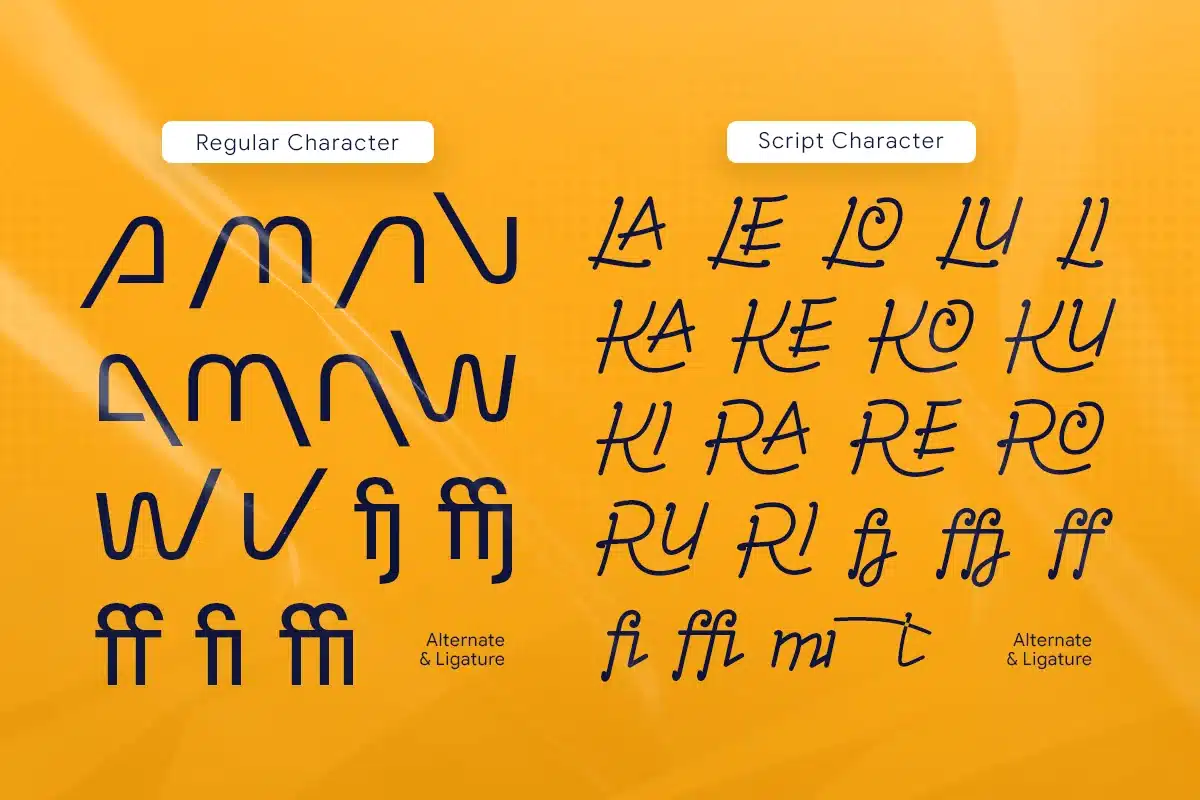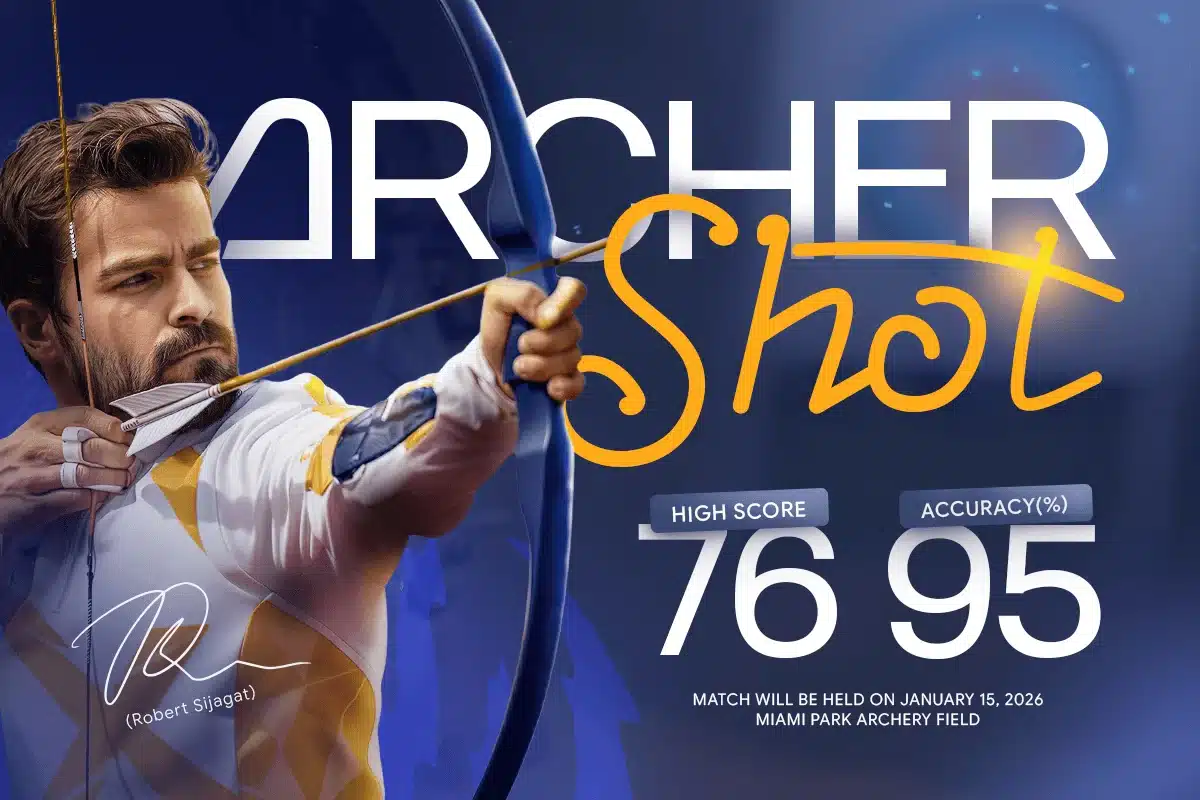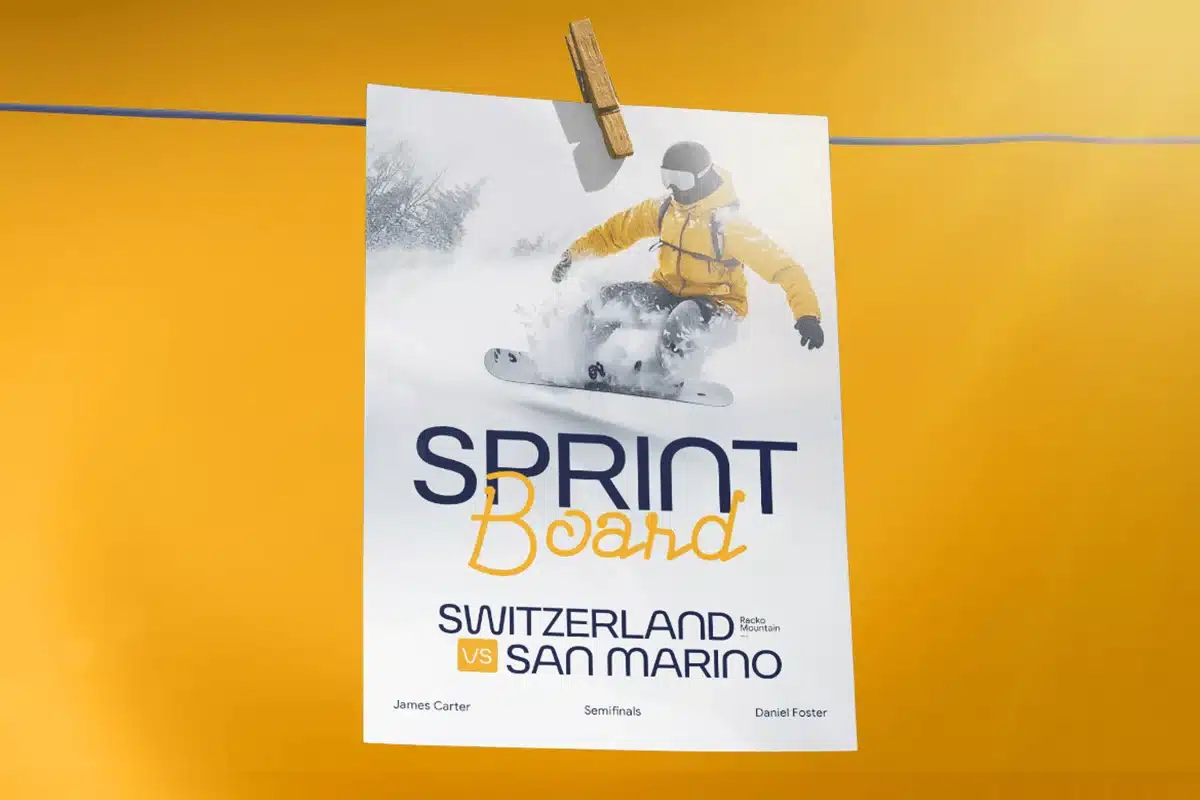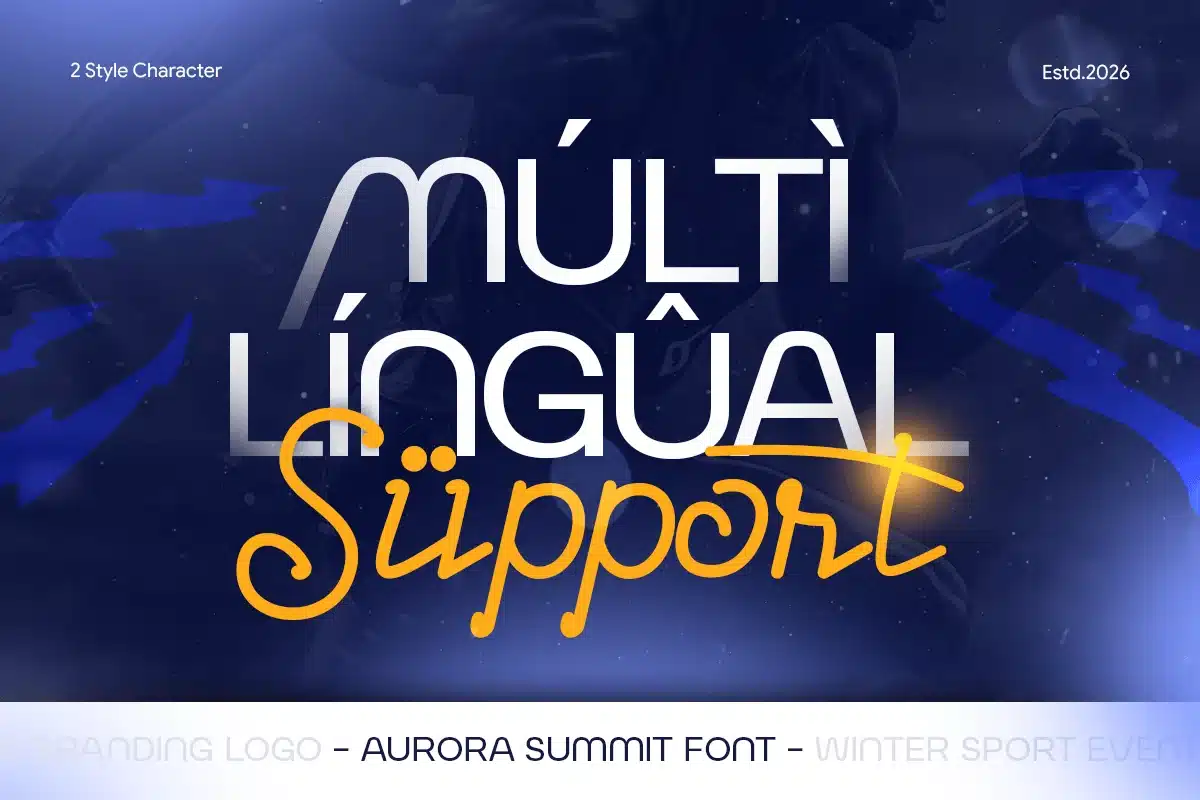
Aurora Summit – Sport Event Branding Logo Font
Aurora Summit is a modern branding logo font inspired by the elegance, energy, and global spirit of the Sport Event. Designed with clean geometric forms, dynamic curves, and a refined modern aesthetic, Aurora Summit is perfect for sports branding, event logos, winter campaigns, international tournaments, and premium visual identities.
Drawing inspiration from winter landscapes, motion, and light—similar to how Sport Event branding reflects culture, energy, and creativity Aurora Summit delivers a powerful and sophisticated visual presence. Its versatile structure ensures excellent readability while maintaining a distinctive and memorable identity.
Ideal for global events, sports branding, outdoor campaigns, and modern corporate visuals, this font brings a balance of professionalism and energetic design
Aurora Summit – Sport Event Branding Logo Font Features:
- Modern sporty style with Sport Event-inspired aesthetics
- Ideal for event logos, branding, and promotional campaigns
- Prepared with 2 fonts: sans serif and script styles
- Clean geometric structure with dynamic character
- Perfect for sports events, global branding, and premium visuals
Elevate your design with Aurora Summit – the winter-inspired branding font built for global impact.